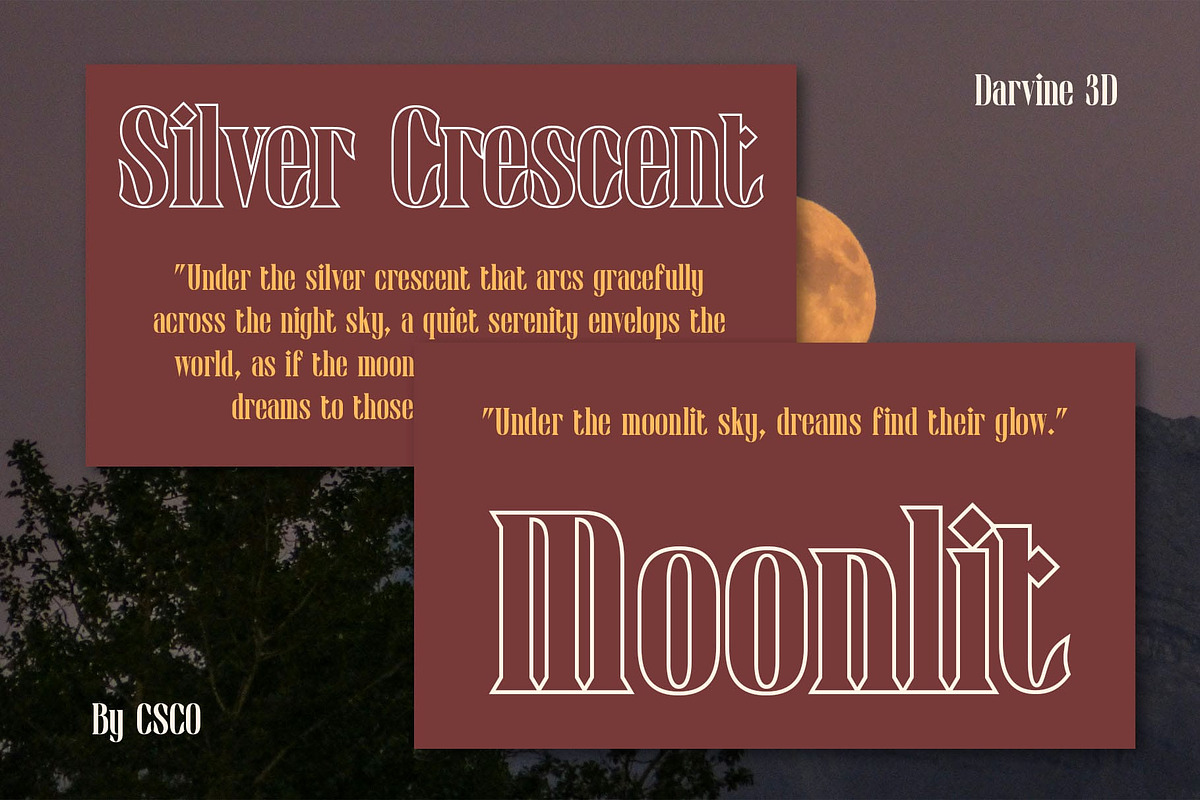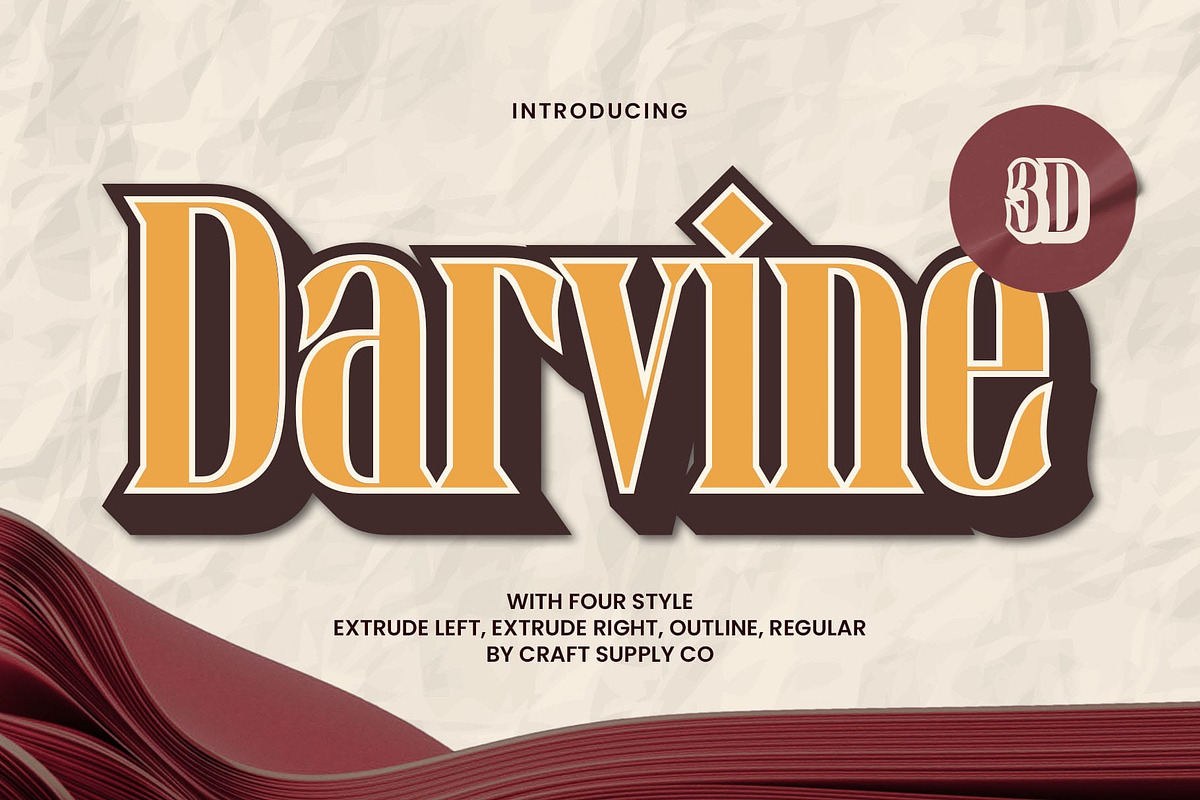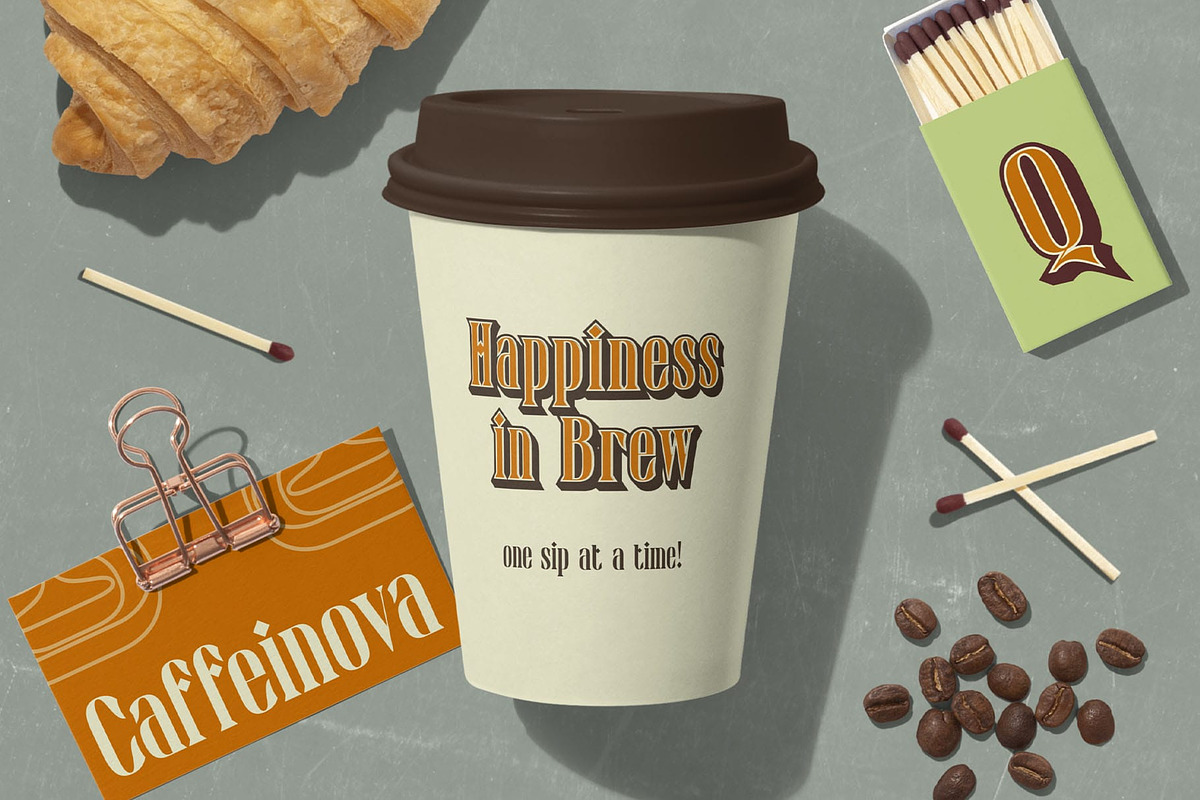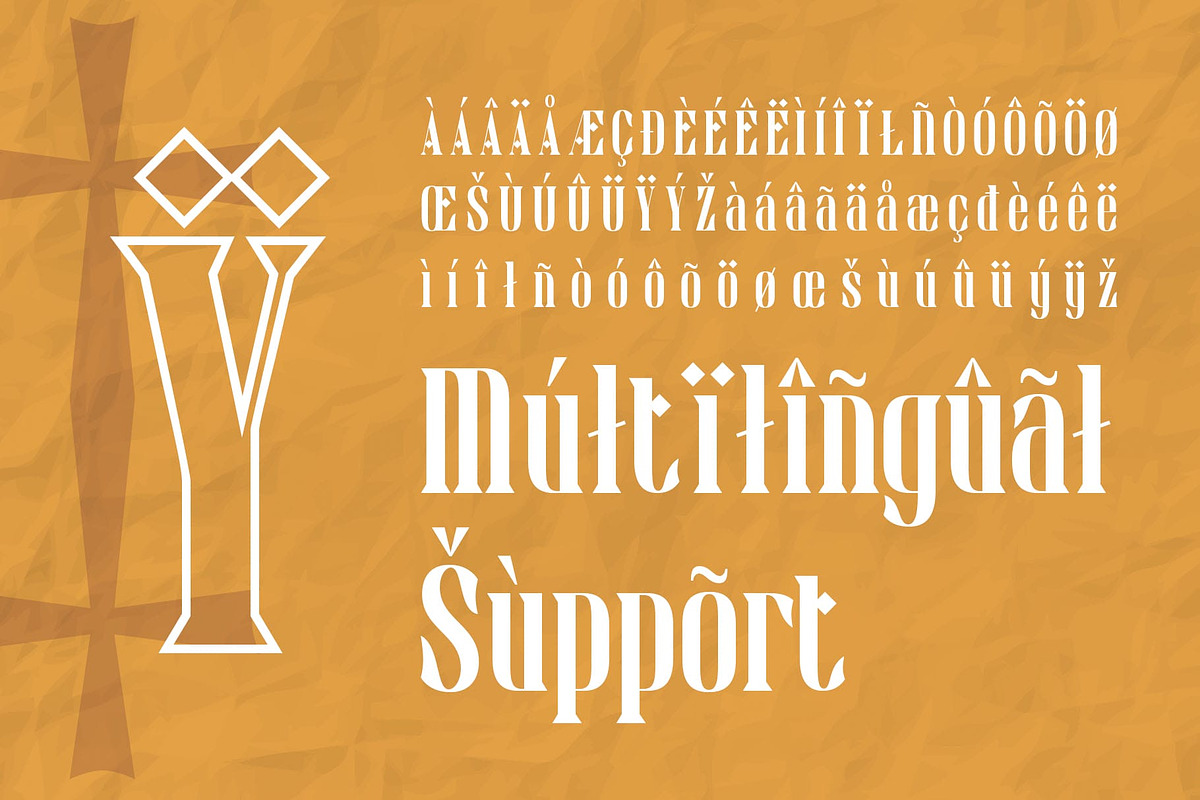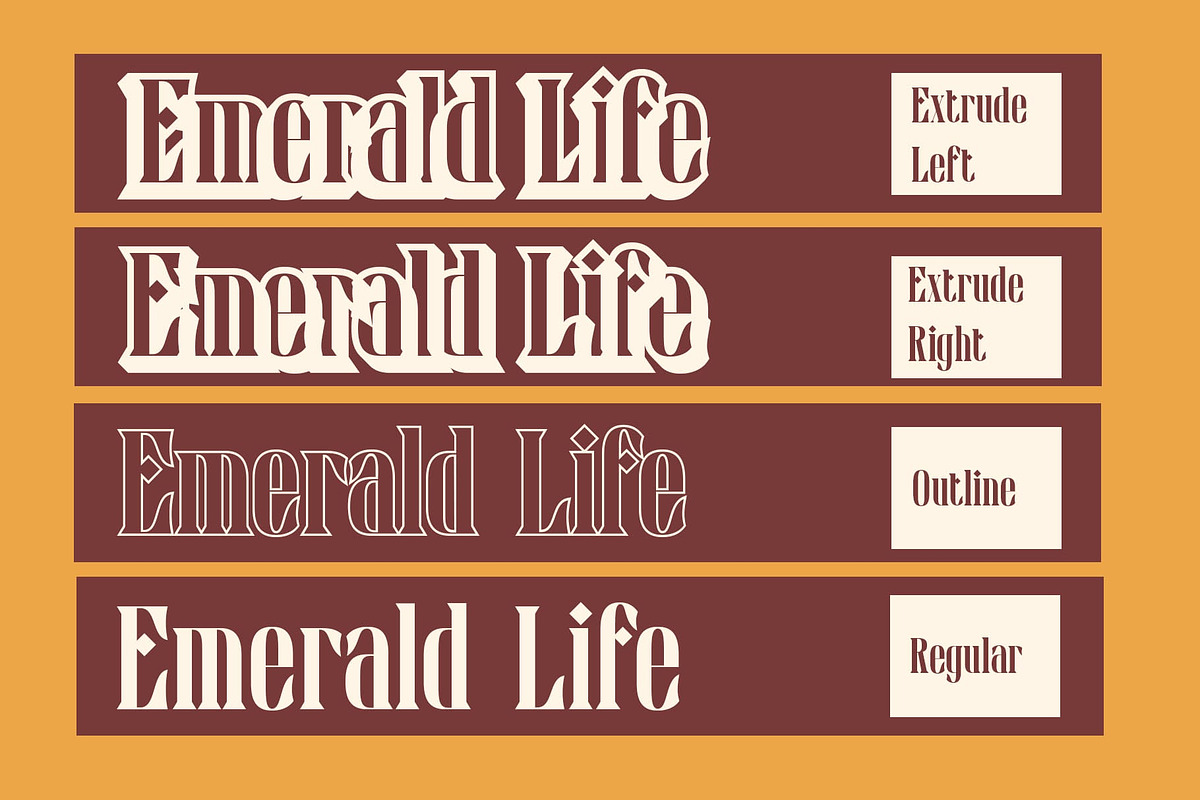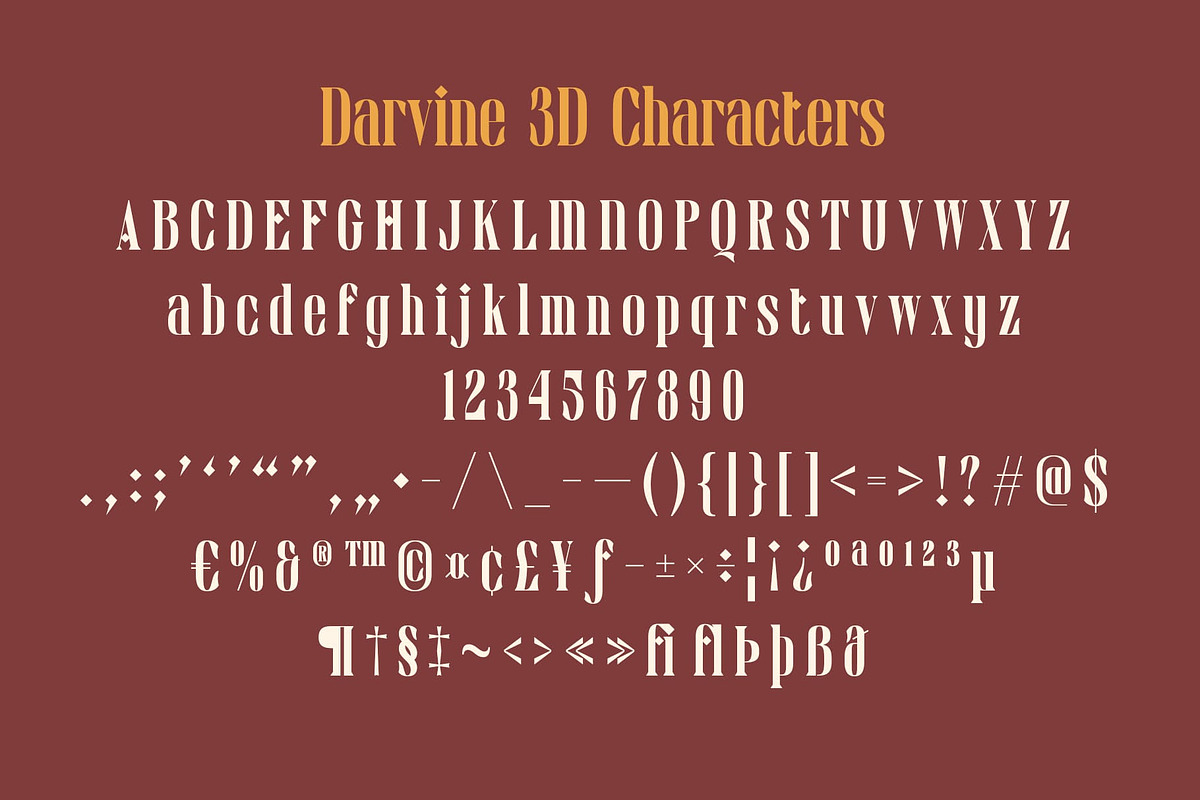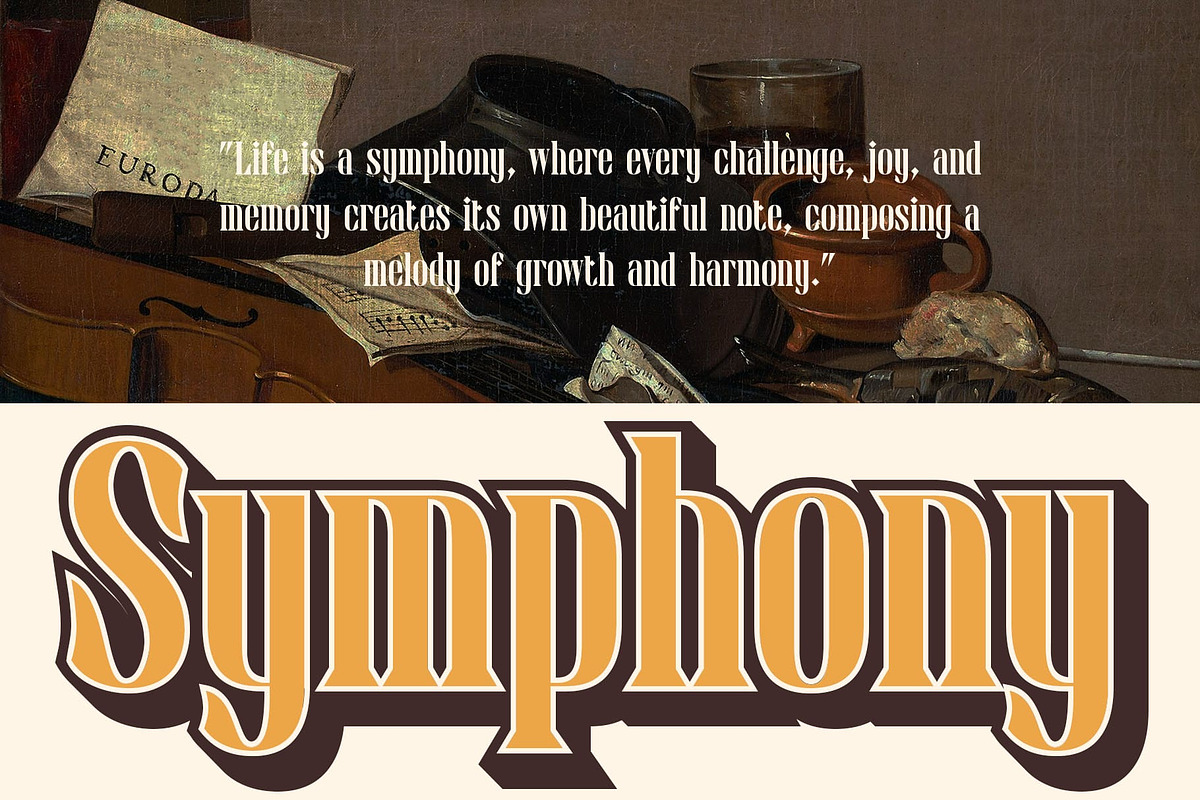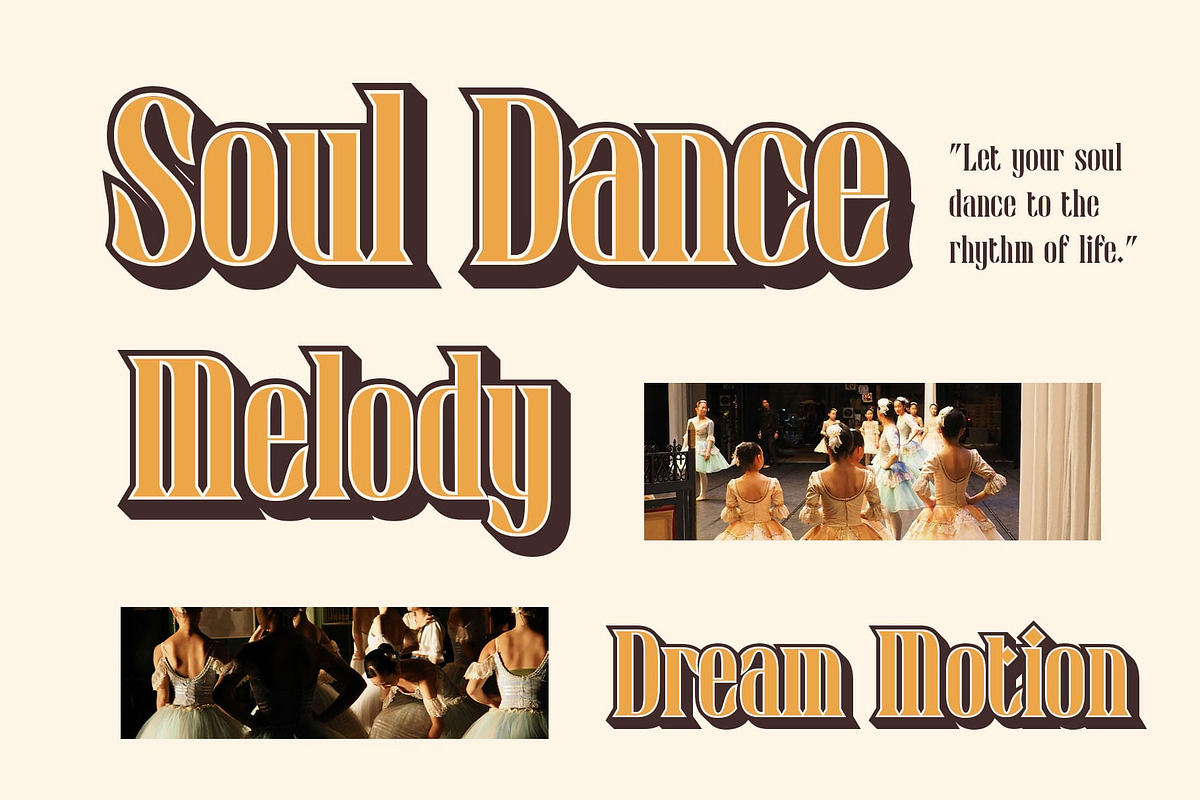
Darvine 3D
Darvine 3D Font: Timeless Elegance with Modern Depth
Classic Serif with Minimalistic and Condensed Design Darvine 3D is a modern serif font that combines a classic, minimalistic style with a condensed form for maximum space efficiency. The sleek and sharp serifs give it a refined, sophisticated look, while the condensed structure allows for a clean and efficient design, perfect for tight layouts. This combination ensures the font maintains a timeless elegance, while its efficient use of space makes it ideal for headlines, logos, and high-end branding.
Striking 3D Effect for Bold Impact What truly sets Darvine 3D apart is its striking 3D effect. The dimensional depth adds a sense of movement and intensity to the otherwise minimalist design, creating a contemporary visual impact that grabs attention. The 3D effect elevates the font’s sophistication, giving it a luxurious, modern feel that makes it perfect for premium branding and high-end editorial work.
Perfect for Sophisticated Branding and Editorial Designs Darvine 3D is perfect for sophisticated branding projects that aim to communicate elegance and professionalism with a bold twist. Its timeless appeal, combined with the striking depth of the 3D effect, makes it an excellent choice for luxury brands, editorial designs, and premium packaging. Whether you’re designing a high-end logo, editorial headline, or marketing material, this font will lend your project a distinctive, refined look.
- Darvine Regular
- Darvine Outline
- Darvine Extrude Right
- Darvine Extrude Left